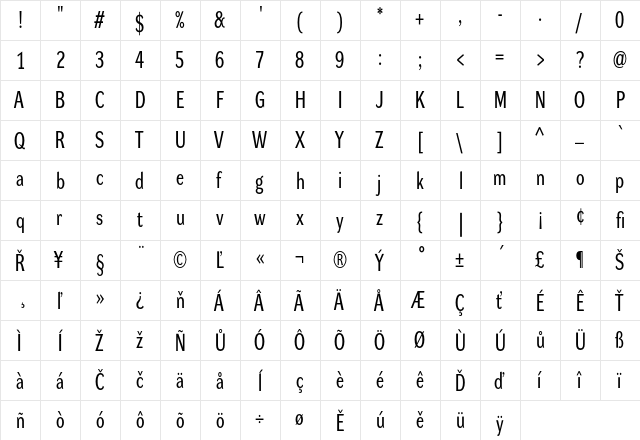
Dynamo RC Regular
Design Context for Dynamo RC Typeface
Dynamo RC is a composed and adaptable typeface that performs quietly and consistently across a wide range of design contexts.